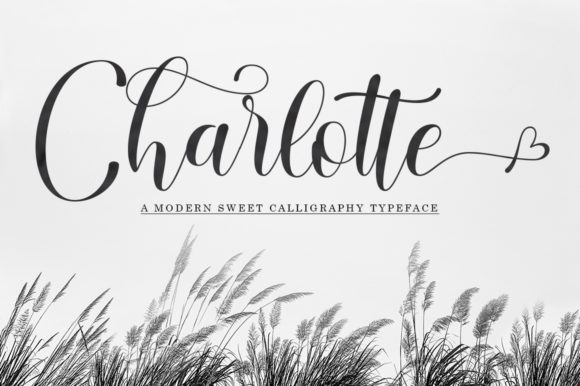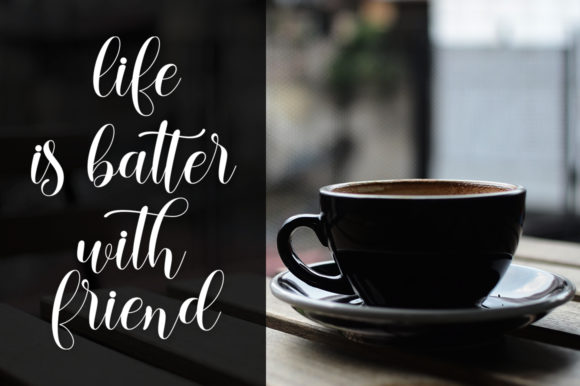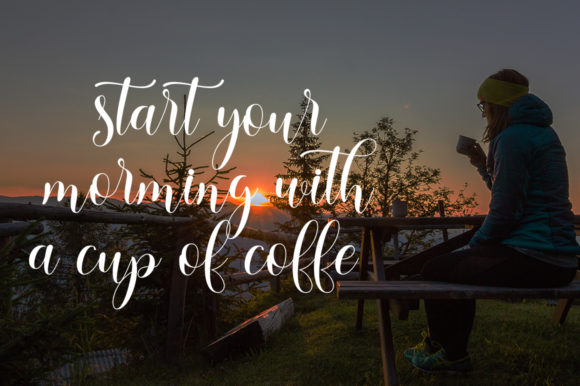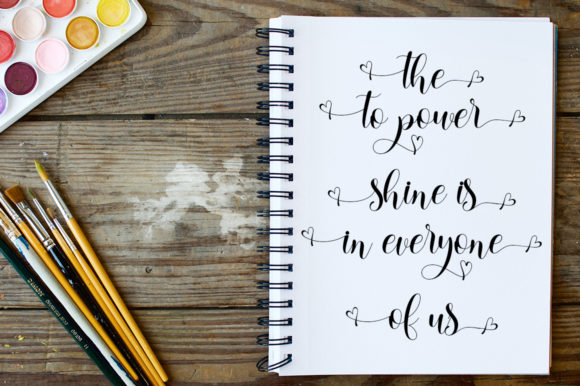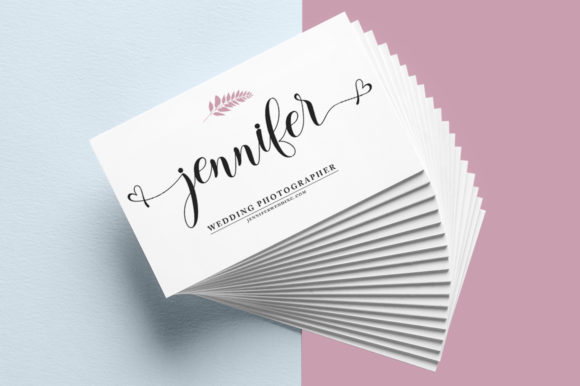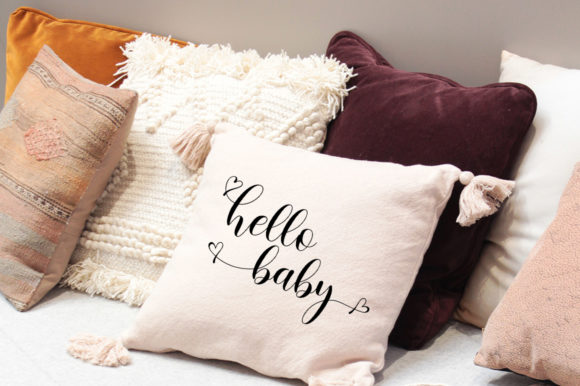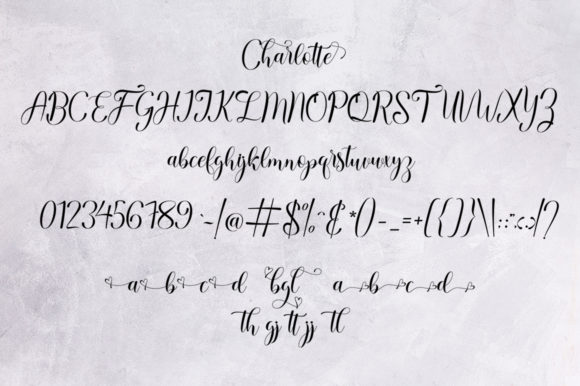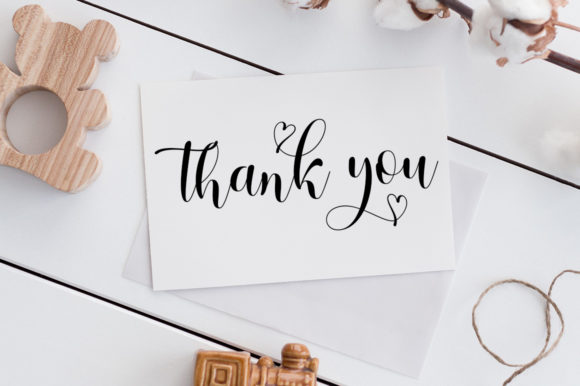
Charlotte Font
About Charlotte Font
Charlotte is a cute and romantic handwritten font with an incredibly friendly feel. It features gorgeous swashes and ligatures that make this script incredibly versatile. Whether you’re looking for fonts for Instagram or calligraphy scripts for DIY projects, Charlotte will turn any creative idea into a true piece of art!